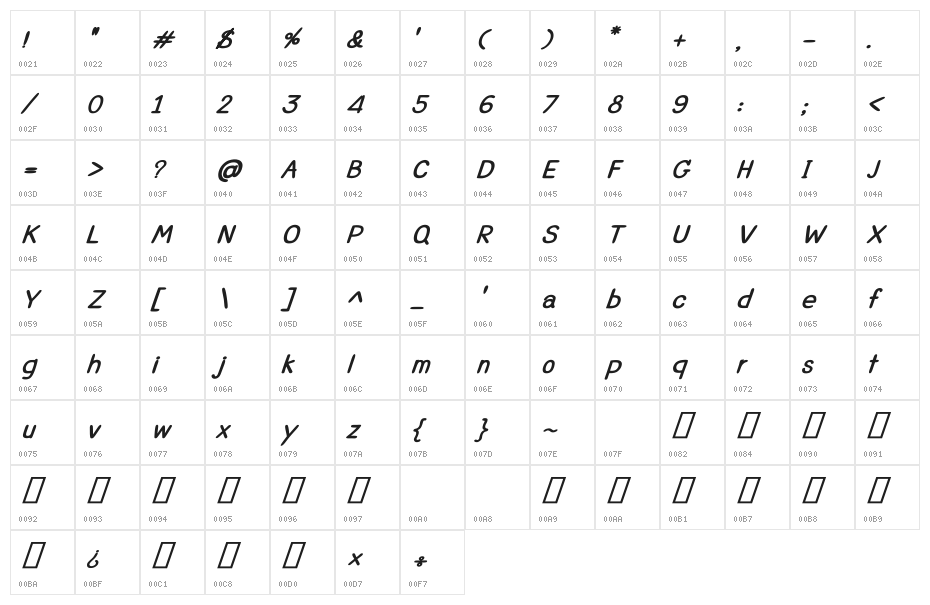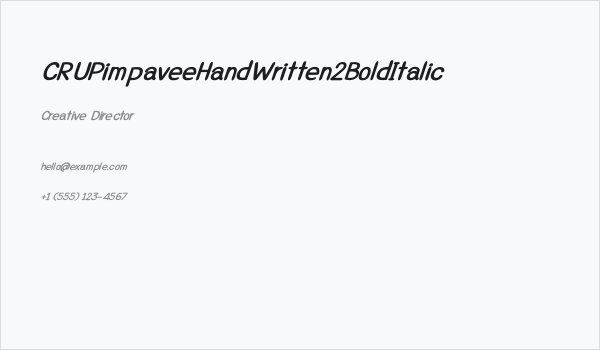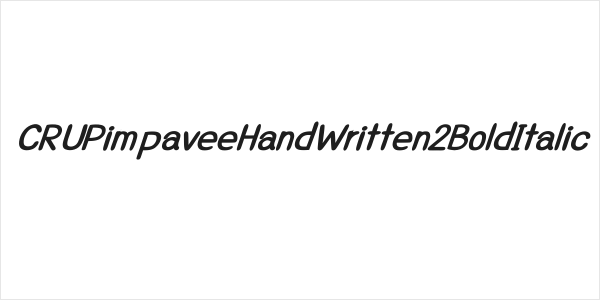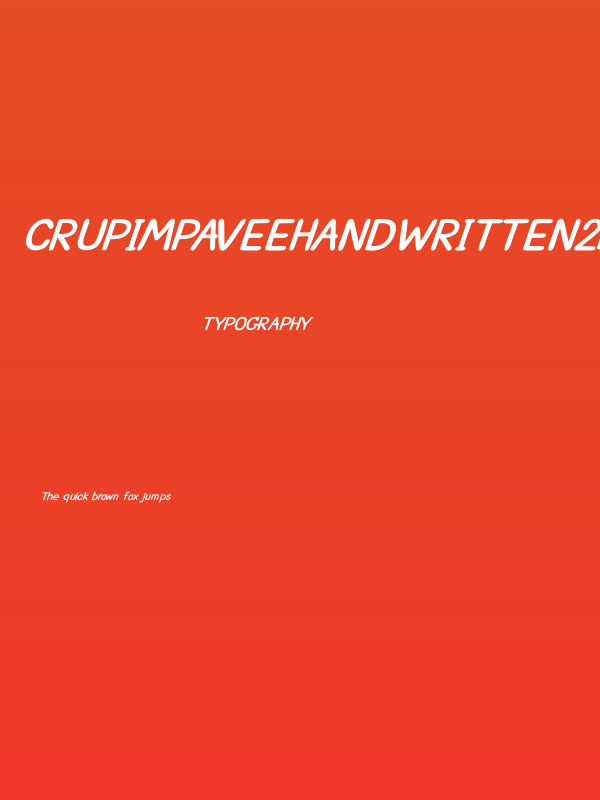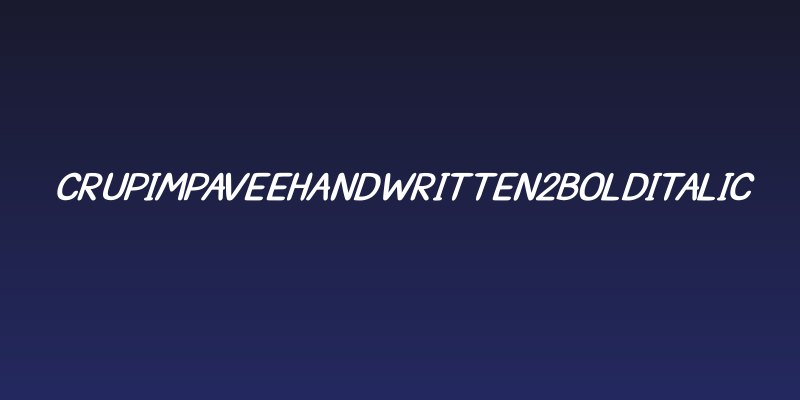
CRUPimpaveeHandWritten2BoldItalic Font
CRUPimpaveeHandWritten2BoldItalic Description
This font features a dynamic and fluid handwritten style, characterized by its bold and italicized appearance. The letters are slightly slanted, adding a sense of motion and energy to the text. The strokes are consistent in thickness, providing a uniform look across all characters. The uppercase and lowercase letters maintain a cohesive style, with rounded edges and smooth curves that enhance readability. Numbers and special characters are designed to match the overall aesthetic, ensuring versatility in various applications. The font's playful yet sophisticated design makes it suitable for creative projects.